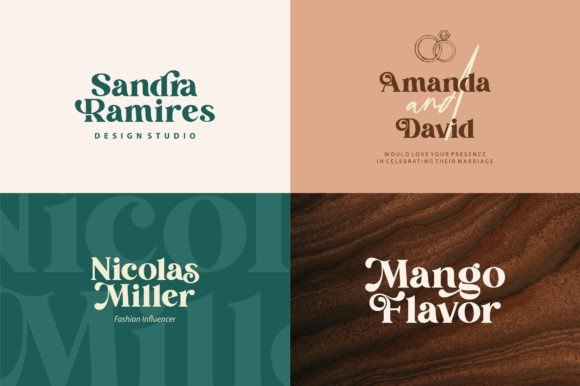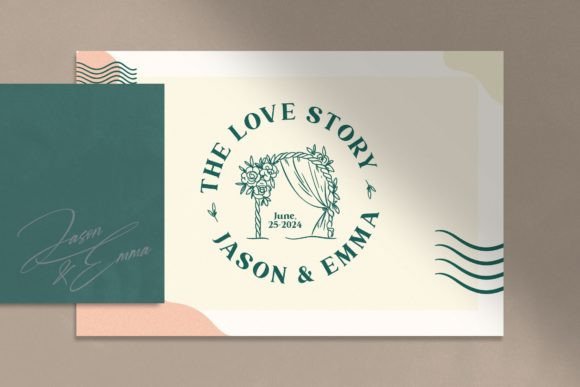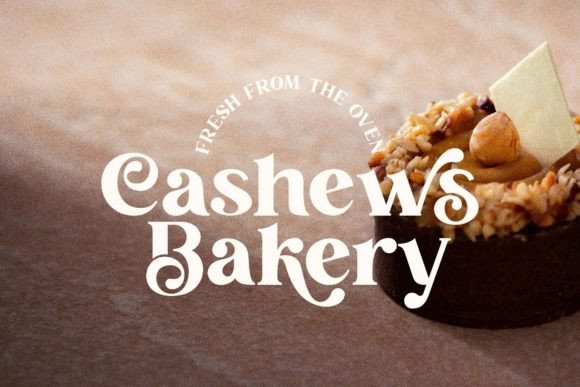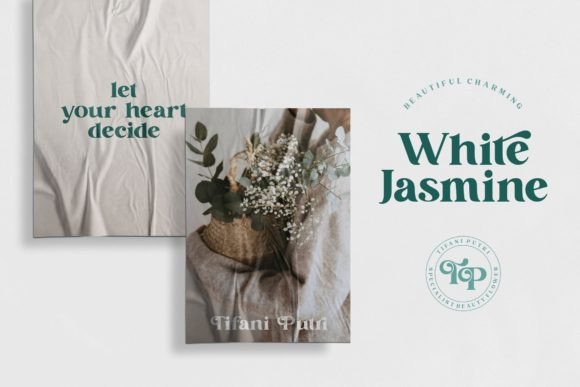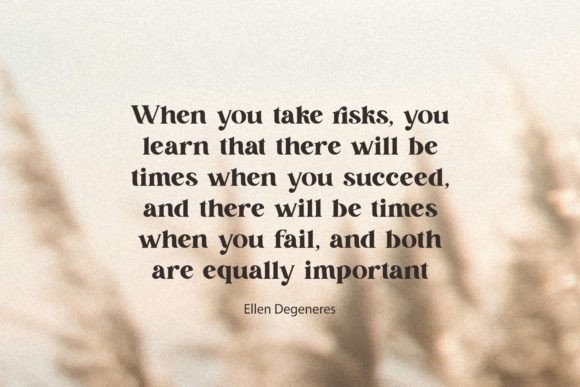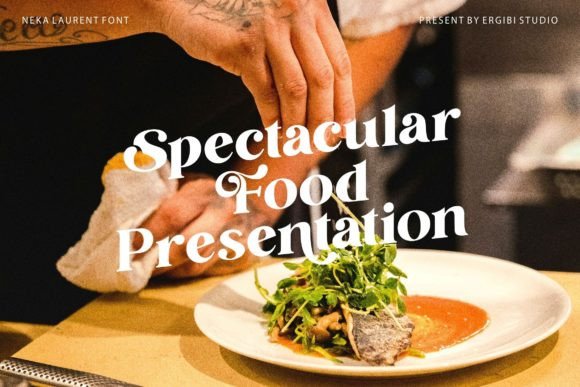
Introduction to Neka Laurent Font
Have you ever been working on a creative project, pouring your heart and soul into it, only to find that the right font is missing to elevate your design? This is where the magic of typography comes in – the perfect font can make all the difference. For designers seeking a sophisticated and modern look, Neka Laurent Font is an excellent choice. With its clean lines and subtle curves, this elegant serif font is perfect for editorial designs, luxury branding, and web typography.
What sets Neka Laurent Font apart is its ability to add a touch of modern elegance to any composition. Whether you’re working on a high-quality design project or just need a reliable design resource, this font is a valuable addition to your toolkit. And the best part? You can download it for free, making it an accessible and versatile choice for designers of all levels.
With its transparent background and high-quality design, Neka Laurent Font is a must-have for any creative project. So why settle for anything less when you can have a font that exudes sophistication and style?
Neka Laurent Font
- Unique, elegant design makes it an excellent design resource for various applications.
Honest Review: Neka Laurent Font
I recently stumbled upon the Neka Laurent Font and was impressed with its unique characteristics. As a designer, I’m always on the lookout for high-quality design resources that can elevate my creative projects.
- ✨ Unique and elegant design: The Neka Laurent Font has a distinct, sophisticated feel that’s perfect for formal or professional projects.
One potential limitation of the Neka Laurent Font is that it may not be suitable for more playful or casual projects, as its elegant design may come across as too formal.
Overall, I’m really impressed with the Neka Laurent Font and would highly recommend it to designers who are looking for a high-quality, free design resource. With its unique design and transparent background, it’s a great addition to any creative project.
Neka Laurent Font
The Neka Laurent Font is a high-quality design resource that offers a free download with a transparent background, making it perfect for any creative project. With its modern and elegant style, this font is ideal for use in various applications.
The Neka Laurent Font is ideal for use in a variety of creative projects, including: branding, logos, business cards, and marketing materials. Its modern and elegant style makes it perfect for use in digital and print applications.
What makes the Neka Laurent Font unique?
The Neka Laurent Font features a transparent background, allowing you to easily combine it with other design elements and backgrounds. Its modern and elegant design makes it an ideal choice for a wide range of creative projects, from branding and marketing materials to digital products and print designs.